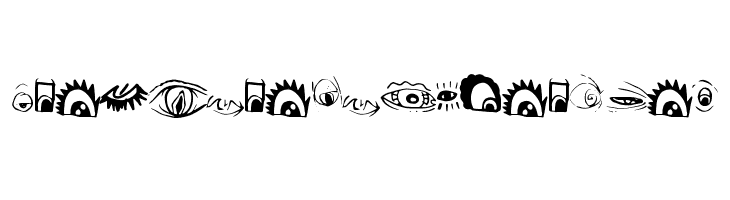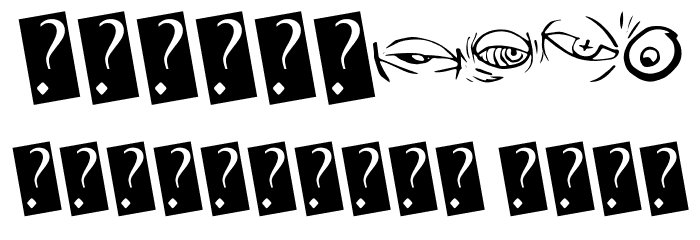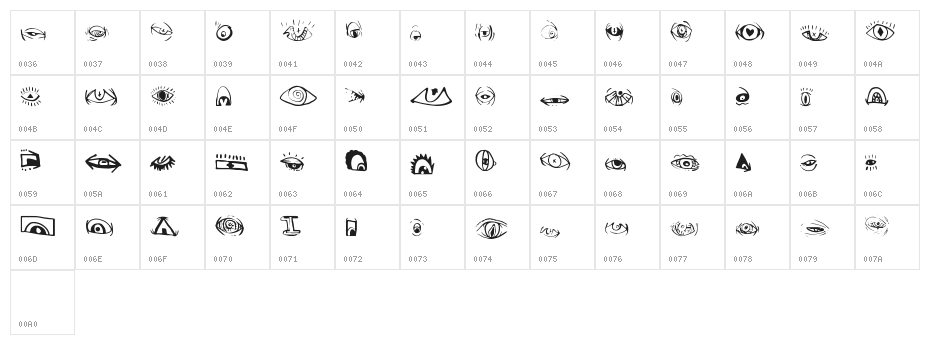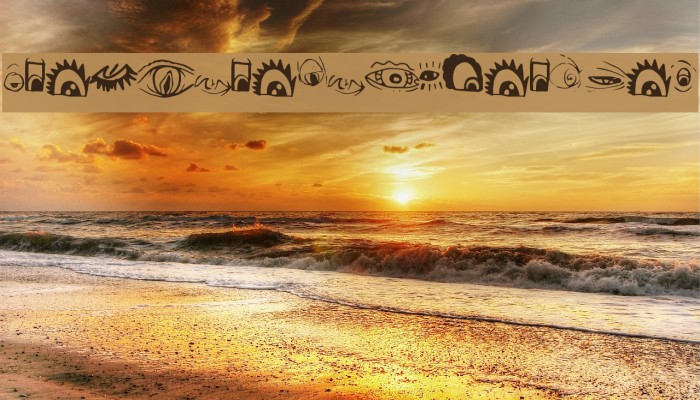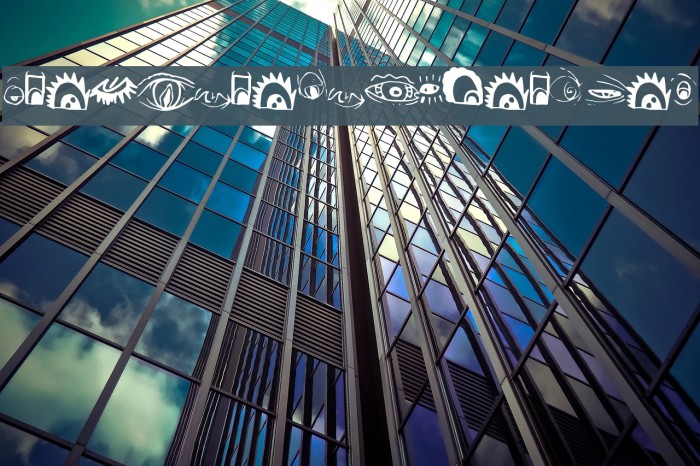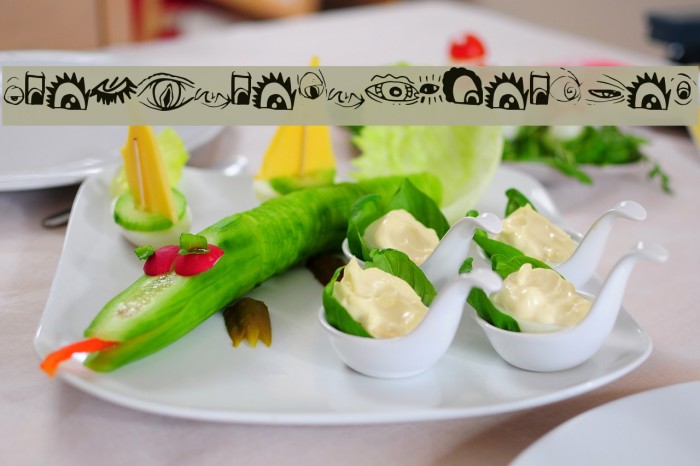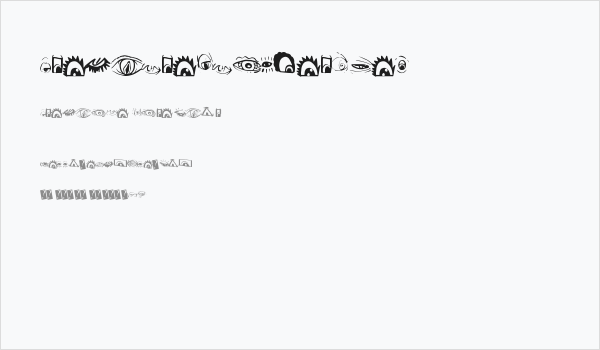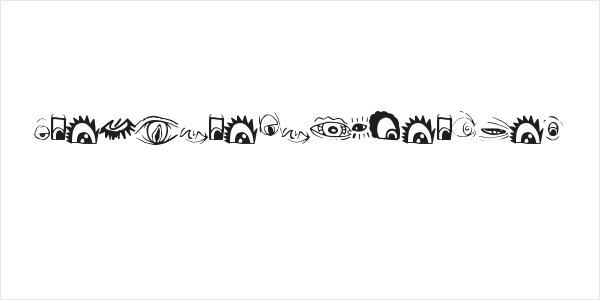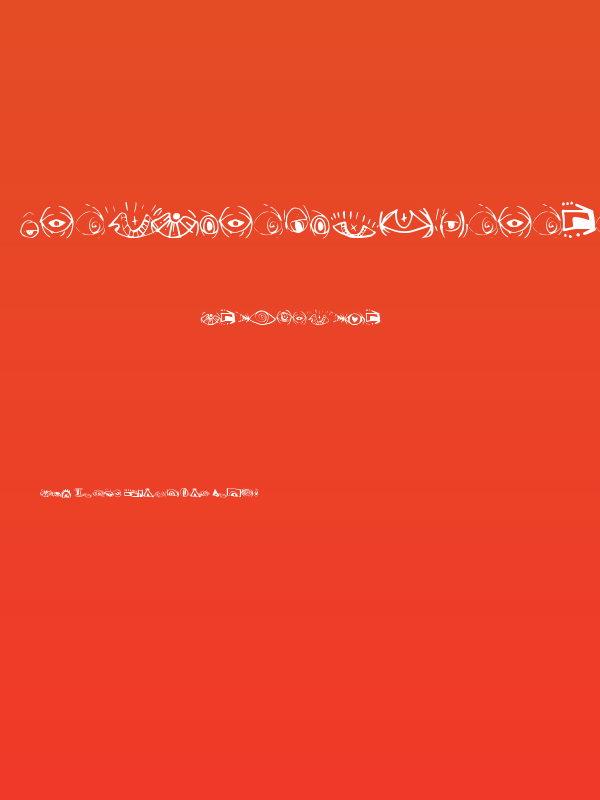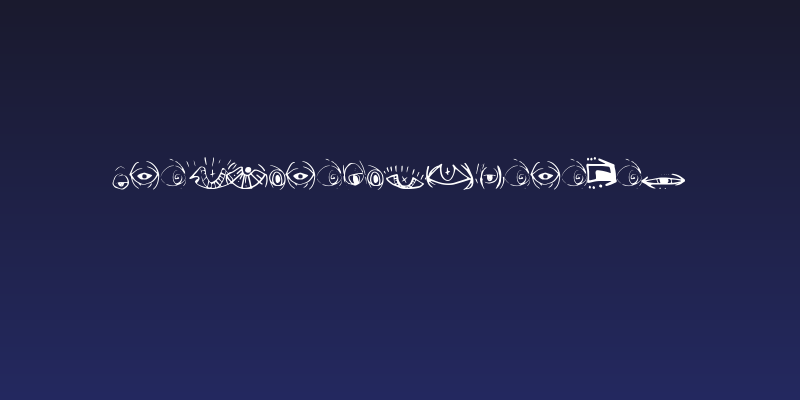
CreatureBuilderEyes Font
CreatureBuilderEyes Description
A highly decorative and whimsical font composed entirely of unique, hand-drawn eye illustrations for each character, with playful and imaginative variations. The symbols and punctuation also feature creative, eye-themed designs or bold question marks within black rectangles.
| Overall Style | Decorative, Whimsical, Playful |
| Use Case | Logos, Posters, Themed Headlines, Creative Projects |
| Proposed Projects | Children's books, fantasy games, monster or creature design projects, creative posters, Halloween invitations, branding for quirky products. |